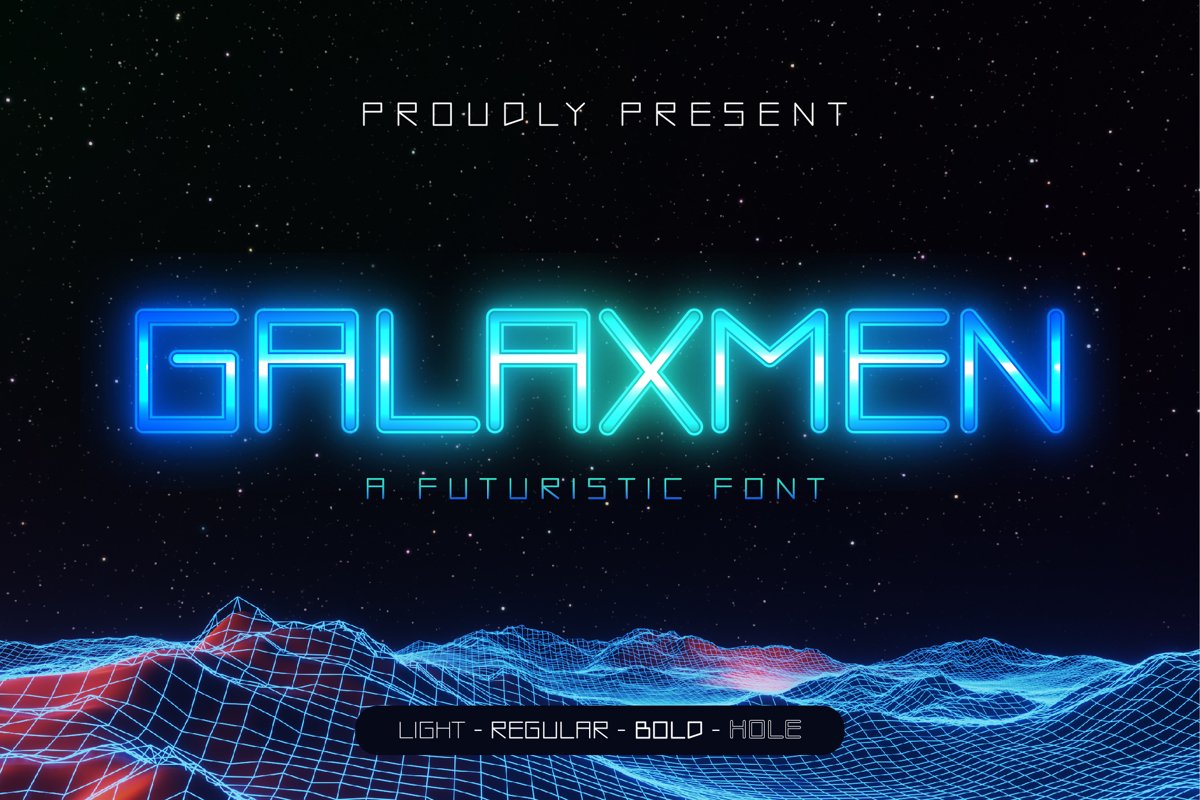
Created By Gilz Type
GALAXMEN - A FUTURISTIC FONT
Introducing GALAXMEN - A MODERN FUTURISTIC FONT, that comes in a Light, Regular, Bold & Hole version
This font is perfect for Poster Design, Scifi Movies, Labels, Cover, Album, Logos, Web font, and much more modern purposes!